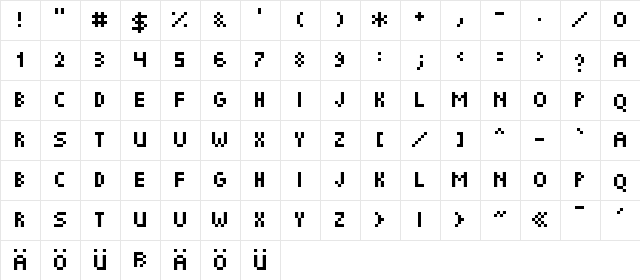
Frucade Small Regular
Design Context for Frucade Small Typeface
Frucade Small offers clean, dependable letterforms without strong stylistic allegiance, making it a practical choice for designers who need flexibility.